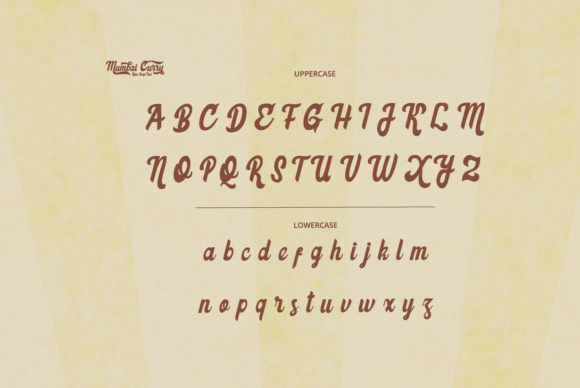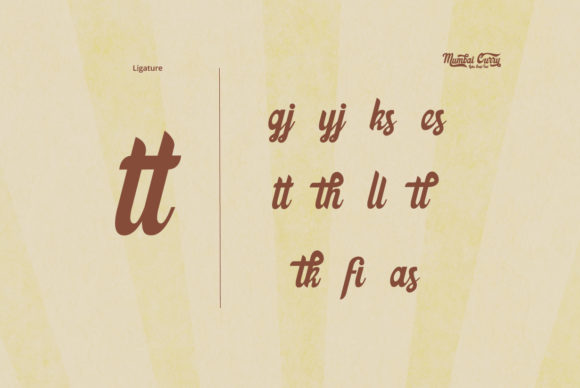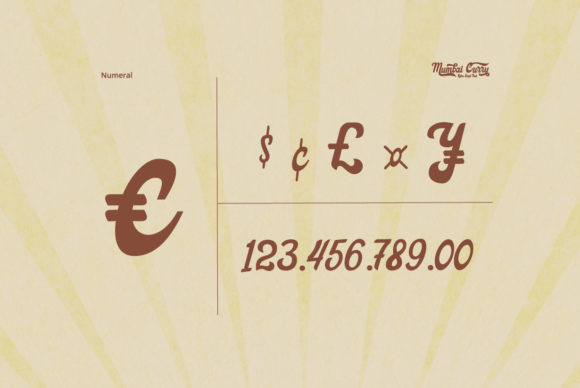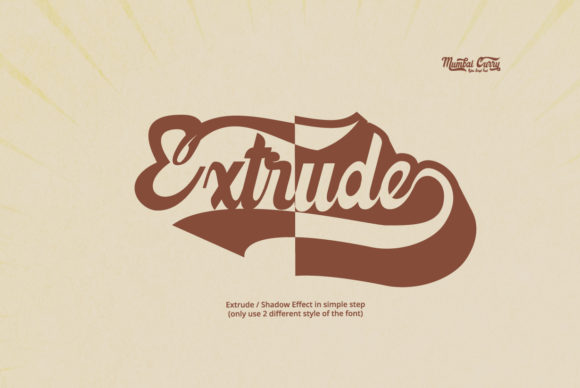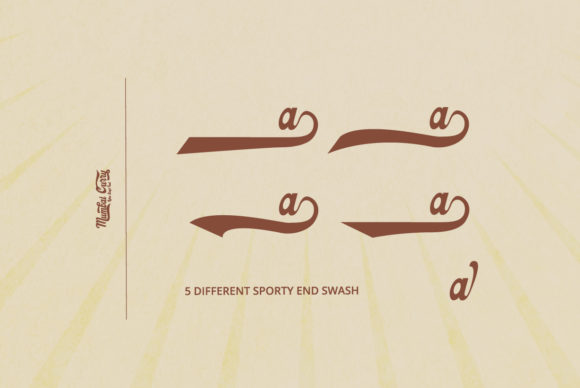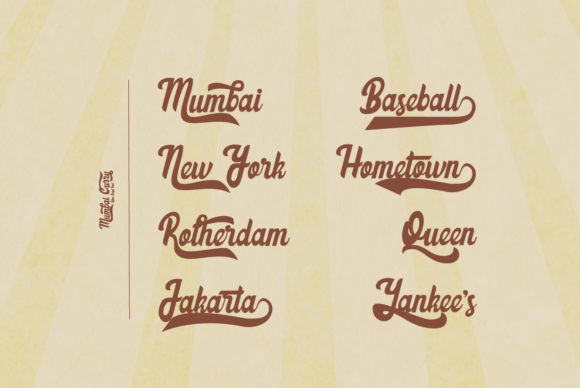
Introduction to Mumbai Curry Font Font
Fonts play a crucial role in design, and the Mumbai Curry Font font is a typeface that brings both character and versatility to any project. Whether you’re working on a branding project, a website, or a print design, the Mumbai Curry Font font offers a unique style that can elevate your work.
Mumbai Curry feels playfully nostalgic and delivers an incredible vintage aesthetic.
Use this display font to add that special retro touch to any design idea you can think of .
Key Features of Mumbai Curry Font Font
Why Choose Mumbai Curry Font Font?
The Mumbai Curry Font font is more than just a typeface – it’s a design tool that helps you communicate your message with style and clarity. Its unique character set and versatile design make it suitable for a wide range of applications, from elegant invitations to bold headlines.
With its carefully crafted letterforms and balanced proportions, the Mumbai Curry Font font ensures readability and visual appeal across all mediums.
What makes Mumbai Curry Font font special?
The Mumbai Curry Font font stands out with its unique design, exceptional readability, and versatility across various design applications.